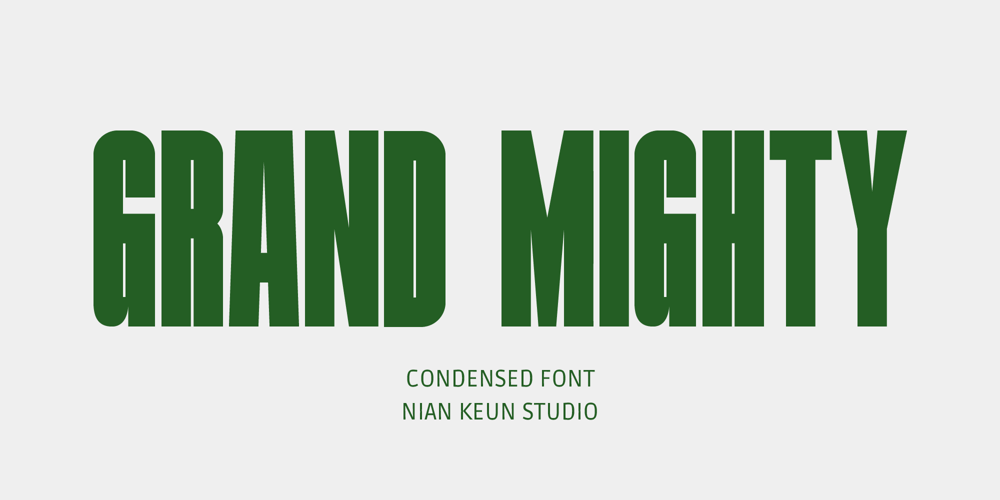
Grand Mighty Font Family was designed by Mugi Raharjo and published by Nian Keun Studio. Grand Mighty contains 1 styles and family package options. Grand Mighty is a display font that seamlessly blends clean and modern elements. This font stands out with its condensed design, creating a powerful and efficient visual impression.With its elegant design, “Grand Mighty” combines sharp angles with smooth lines, creating a visually appealing balance. Each letter is highly defined and clear, making it suitable for various design needs that require a bold and clean look.The simplicity and sophistication of “Grand Mighty” make it an ideal choice for modern projects such as logo design, promotional materials, eye-catching headlines, and more. With this font, you can convey a professional and contemporary impression that will leave a lasting impact in all your graphic designs.Thank you for coming to my shop and enjoying other fonts.